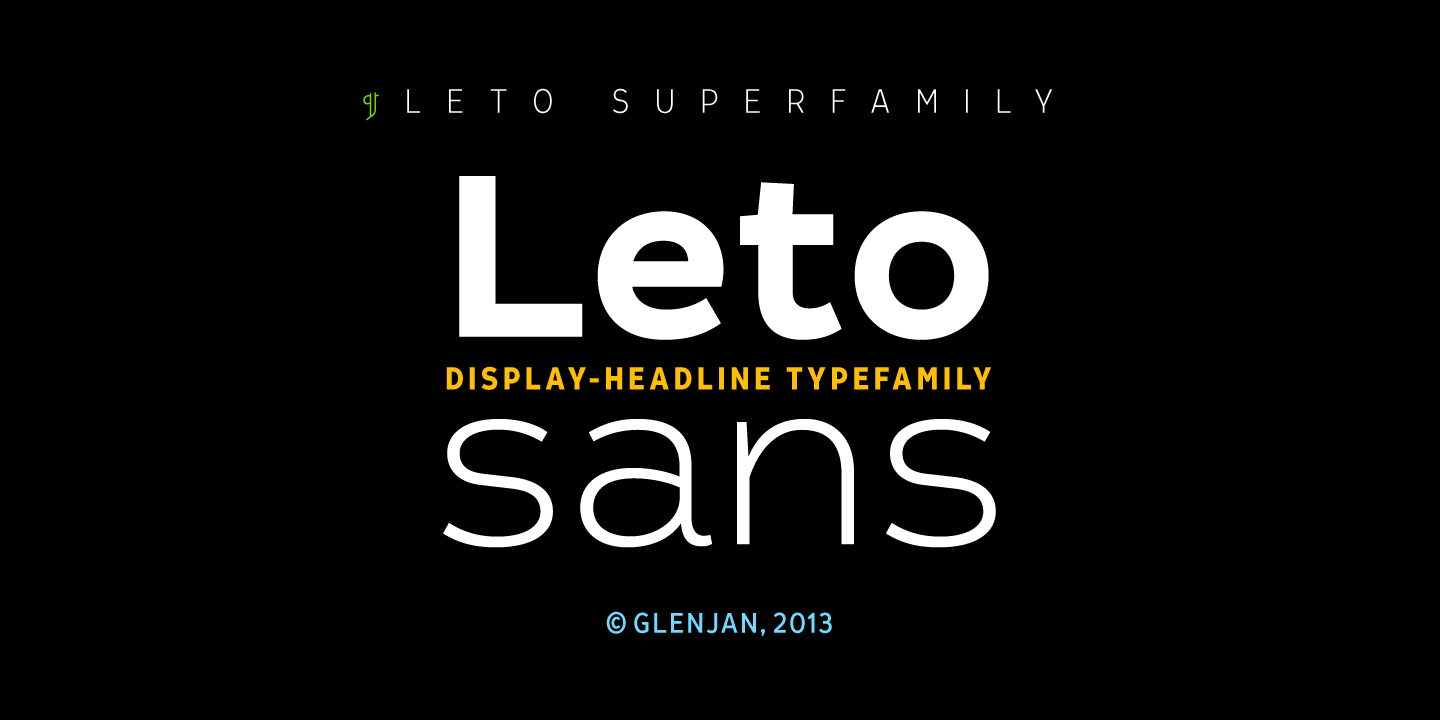
Leto Sans Font Free Download is a clean and versatile sans-serif typeface designed for clarity and simplicity. With its balanced proportions and smooth curves, Leto Sans is perfect for branding, web design, editorial layouts, and user interfaces that demand a modern and professional look.
Whether you're crafting sleek logos, readable body text, or bold headlines, Leto Sans Font Free Download offers excellent legibility and a contemporary aesthetic. Its minimalist design ensures your message is communicated effectively across both digital and print media.